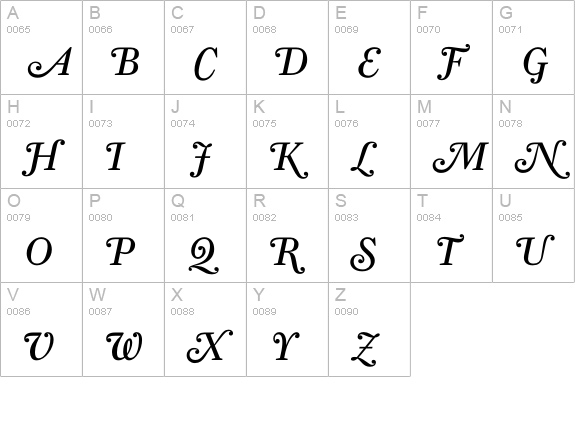
FarnhamDisplay-RegItalSwash is a stunning and elegant font that exudes sophistication and charm. With its delicate swashes and graceful italics, this font is perfect for adding a touch of luxury to any design project. Whether you're creating wedding invitations, branding materials, or elegant signage, FarnhamDisplay-RegItalSwash is sure to make a lasting impression. The best part? This exquisite font is available for free download at FontsMarket.com. Don't miss out on the opportunity to elevate your designs with this beautiful typeface that combines classic elegance with a modern twist. Download FarnhamDisplay-RegItalSwash today and add a touch of refinement to your creative projects.